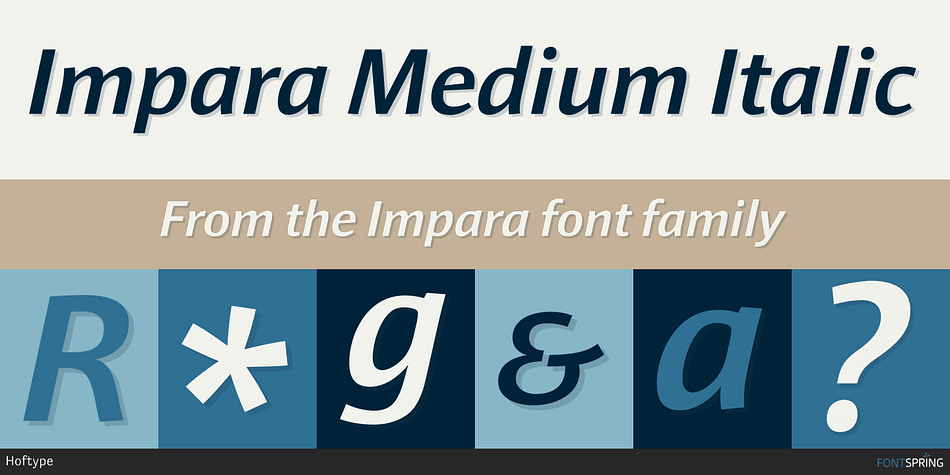
Impara Medium Italic
Impara is a sans serif font family. This typeface has ten styles and was published by Hoftype.
Impara was designed in 2010.
Impara was designed in 2010.  It is a slightly contrasted sans serif with a lively stroke ductus and distinct humanistic characteristics.  It represents a synthesis of linear coolness and classic elegance. It qualifies for informational text applications and, in display sizes, it reveals elaborate details. Impara comes in 10 styles in OpenType and TrueType format.
Each font is equipped with an extended character set containing: standard and discretional ligatures, small caps, proportional lining figures, tabular lining figures, proportional old style figures, lining old style figures, matching currency symbols, fraction- and scientific numerals.
Impara supports Western European as well as Central and Eastern European languages.